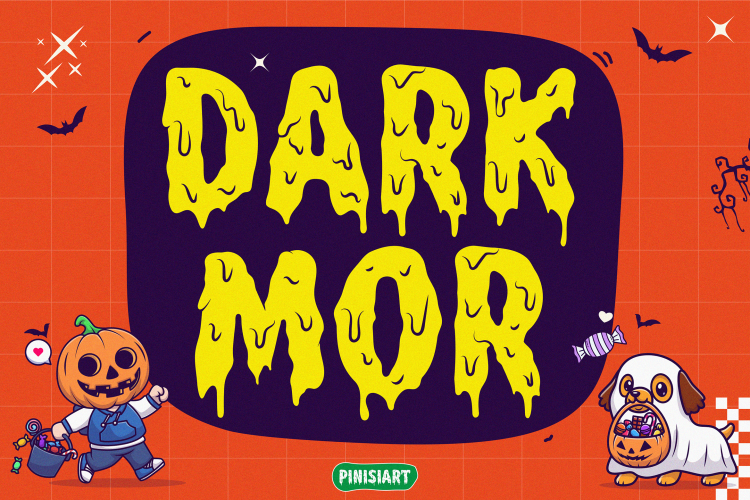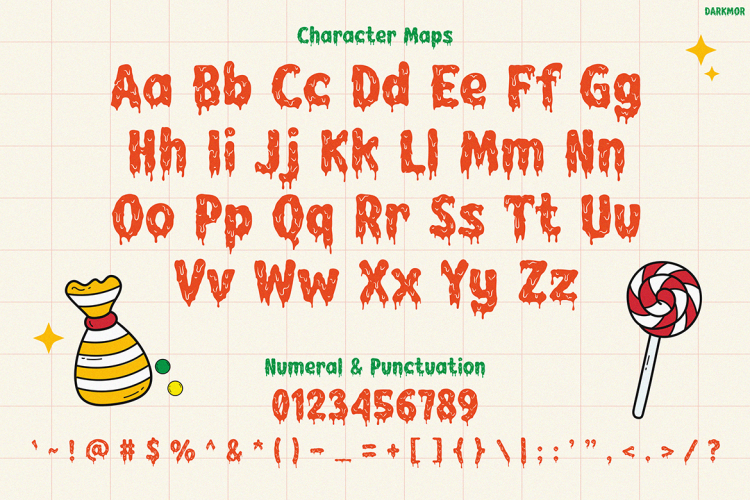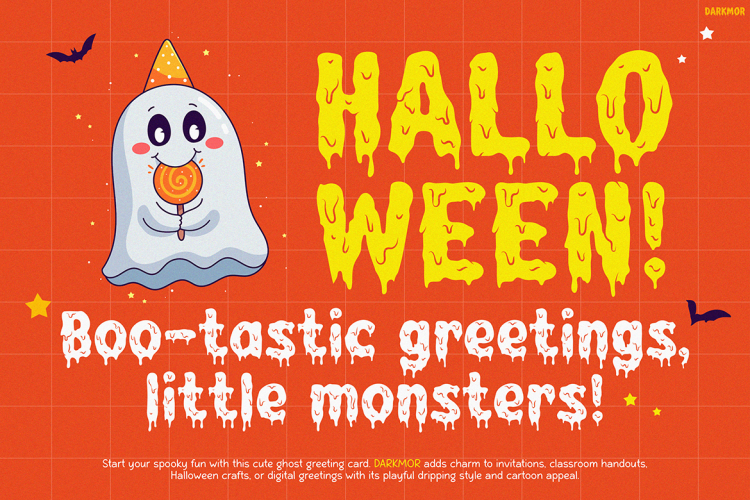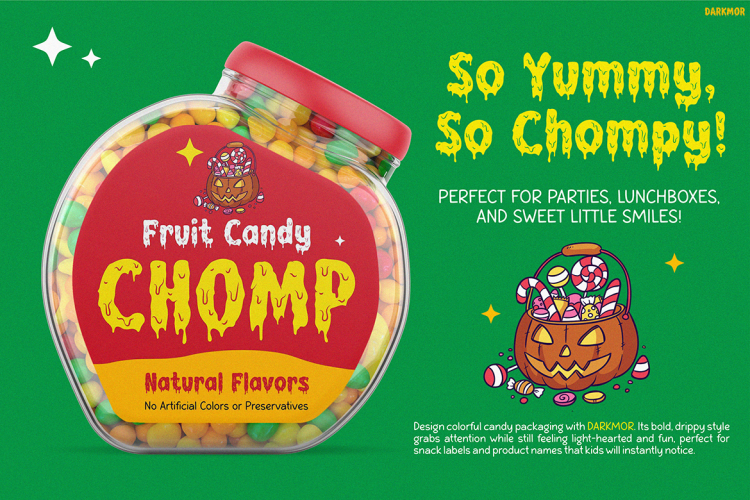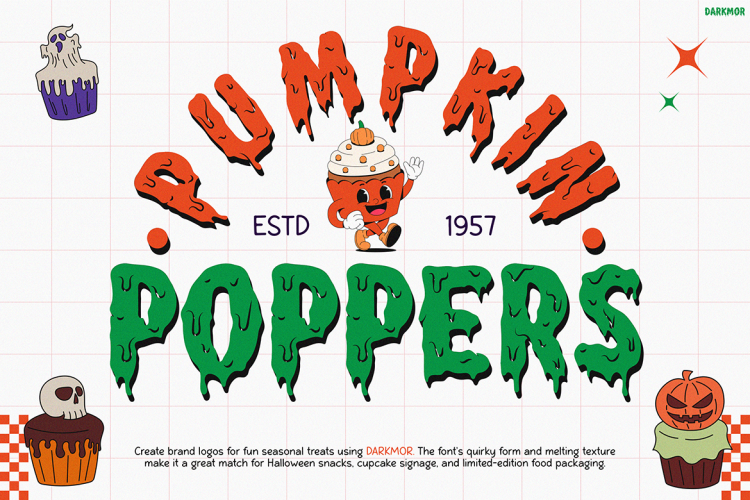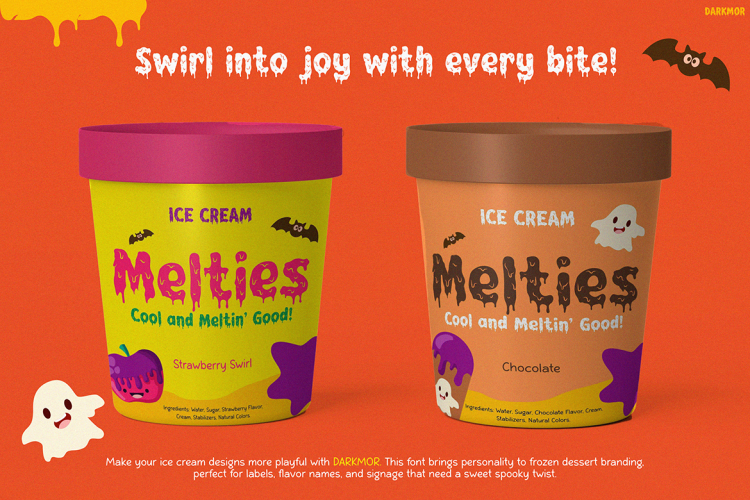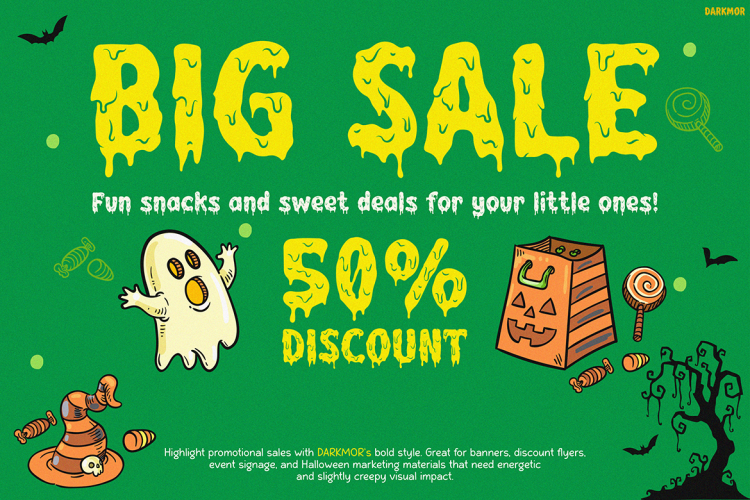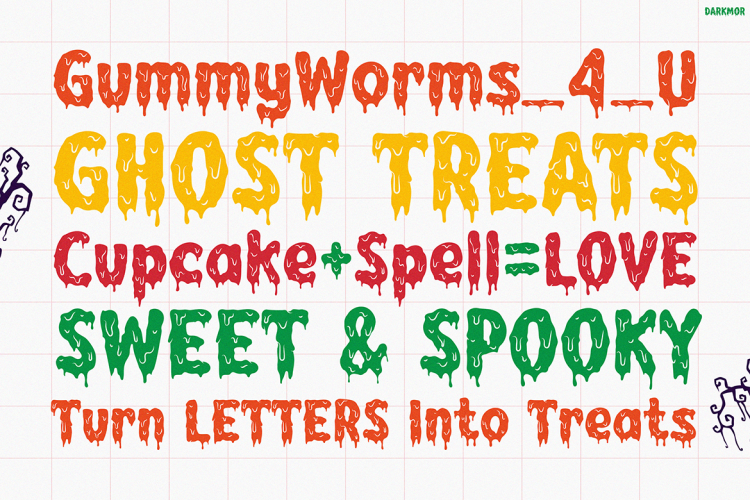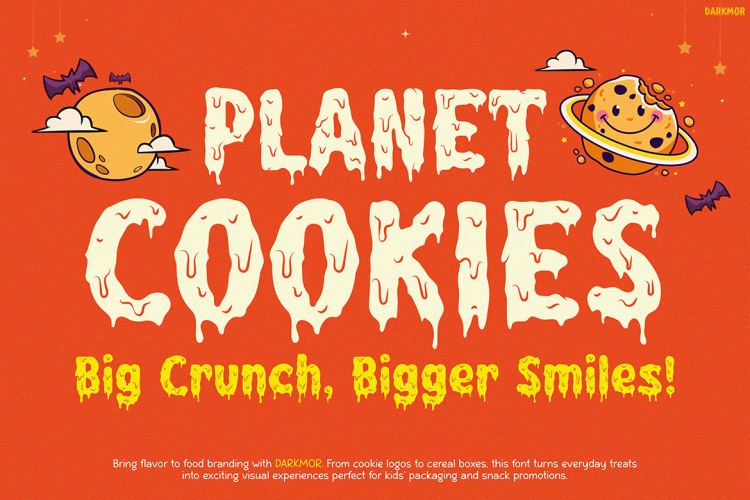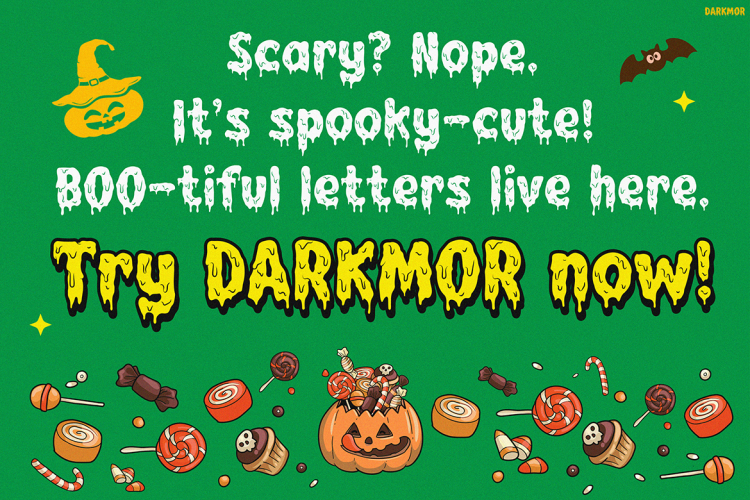
Scary Font DARKMOR: A Dripping Delight for Playful and Spooky Designs
Scary Font DARKMOR combines creepy charm with playful fun. Its bold, drippy letterforms instantly grab attention and add quirky personality to your designs. Inspired by Halloween and candy-themed aesthetics, DARKMOR is scary, yet still light-hearted. Therefore, itโs perfect for projects that need a spooky twist without being too frightening.
Each character looks like it’s melting โ gooey and fun to look at. The texture mimics slime, syrup, or dripping chocolate, which gives it a lively and interactive feel. Moreover, this unique style helps your design pop off the page or screen. Itโs especially great for childrenโs products, candy packaging, or Halloween-themed graphics.
In addition, DARKMOR brings energy and personality to your work. Itโs more than just a font โ itโs an experience. Because of its cartoon-inspired look, any message you write will feel fun, mischievous, and festive.
Who Should Use This Font?
Designers and Creatives: DARKMOR is great for graphic designers who need a bold and playful typeface. For example, it works well for candy labels, party invites, or product packaging. If your project needs a spooky edge with a kid-friendly vibe, this font fits perfectly.
Teachers and Event Planners: Use DARKMOR to brighten up handouts, posters, and Halloween crafts. Additionally, the style is fun and charming โ ideal for younger audiences. As a result, it makes materials more engaging and adds festive flair.
Small Business Owners: Selling sweets, toys, or seasonal goods? DARKMOR makes your labels stand out. It adds character and helps your products grab attention in stores or online. Therefore, using this font could improve brand recognition and appeal.
If youโre after a font that melts hearts and catches eyes, Scary Font DARKMOR is your perfect pick. Add a sweet, spooky twist to your design โ and watch it come to life.